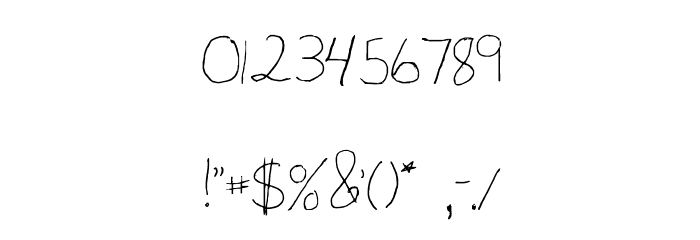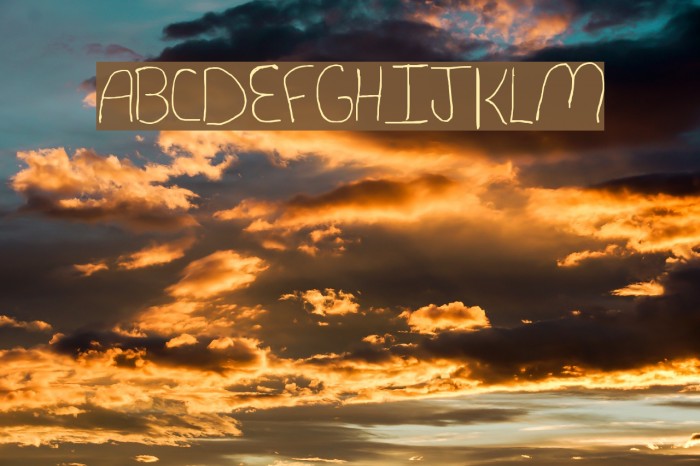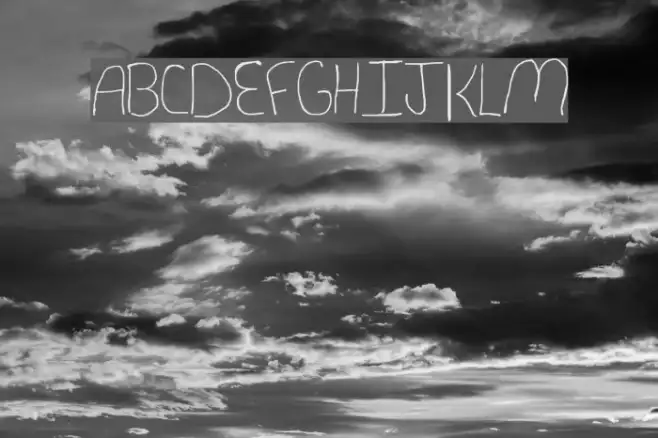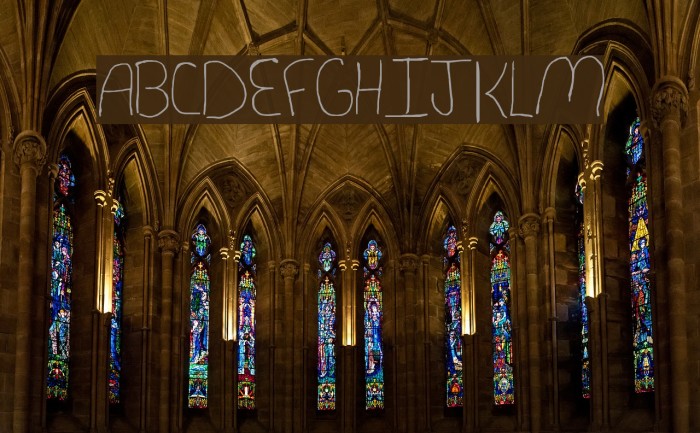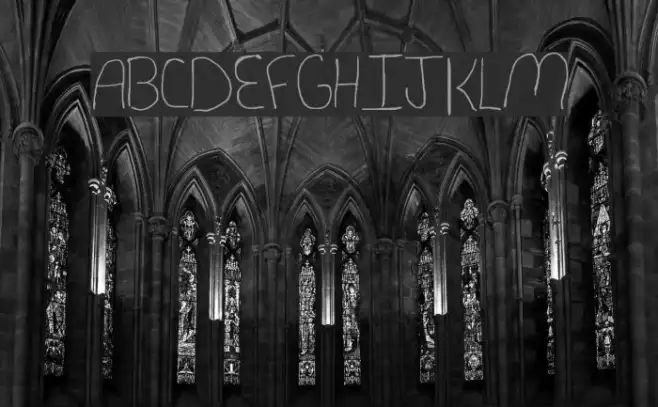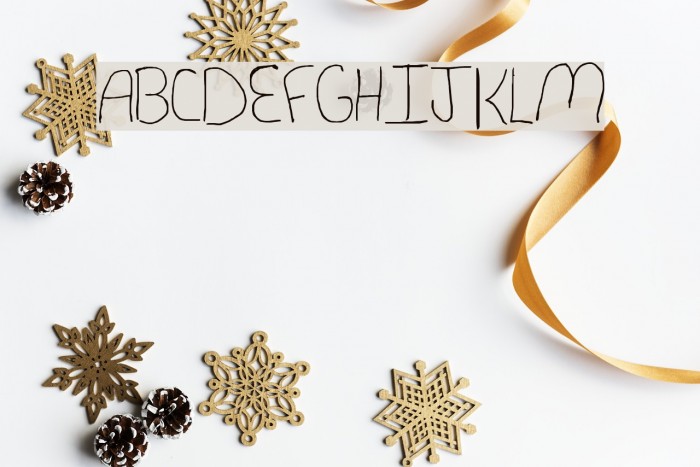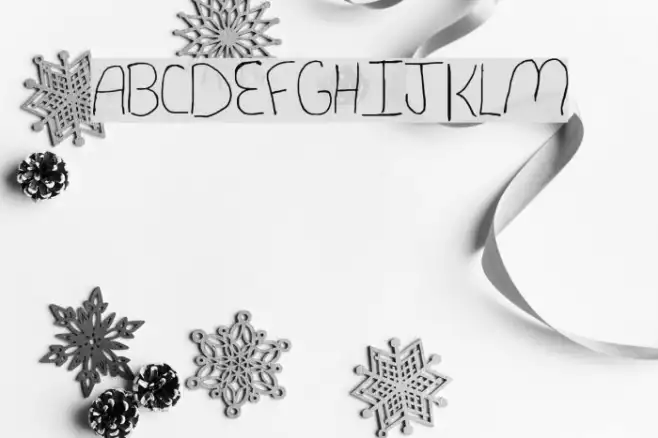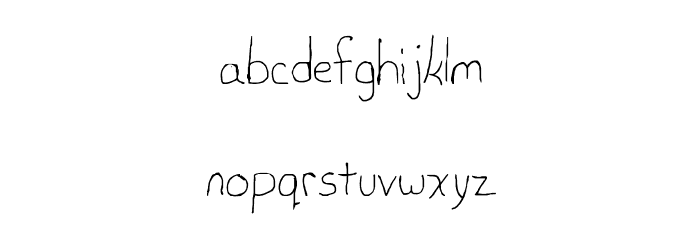
Laurieshand Font
This font features a playful, handwritten style with a casual and informal appearance. The letters are slightly irregular, giving it a personal and authentic touch, reminiscent of a natural handwriting style. The strokes are thin and consistent, with a slight tilt that adds to its whimsical charm. The uppercase letters are slightly taller and more elongated, while the lowercase letters maintain a consistent height, contributing to a harmonious flow. The numerals and special characters follow the same handwritten aesthetic, ensuring a cohesive look across all characters.
A playful, handwritten font with a casual and authentic style.